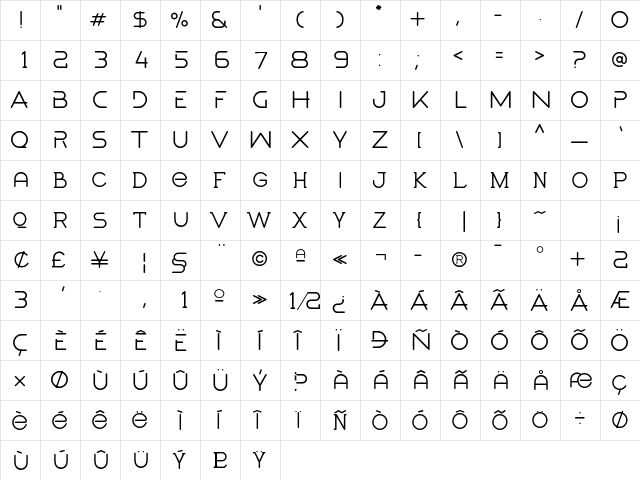
Adega Altered Regular
| Designer | Anisio Dega |
Design Context for Adega Altered Typeface
Adega Altered takes a measured approach to typography — its balanced proportions and neutral character make it a reliable workhorse for both digital and print work.